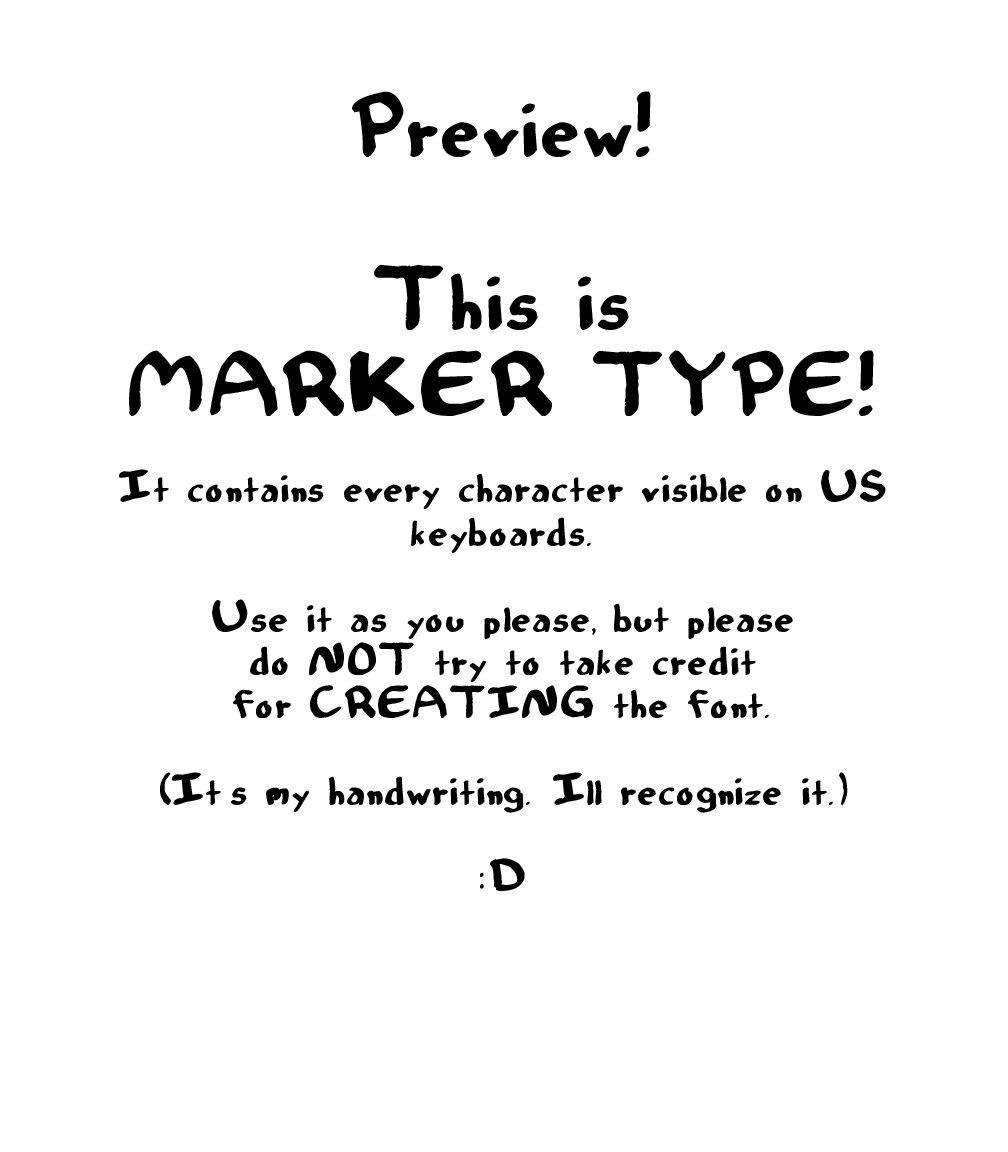
This is my first font EVAH and is a sample of my handwriting.One minor bug... the apostrophe (') and quotation mark (") are not working properly. Anyone know why that is? I'd be might thankful for any help I can get.
Which program did you use to create the font? If it's "Font Creater" I might be able to help you
I like your font, I like those handwriting fonts
haha! this font is really cute! i think i'll use and abuse it! thanks
It's a really nice font, especially for your first attempt. Some letters in particular look fantastic (like the word "Preview"), but there are some that could perhaps still use a little tweaking. The lowercase m seems a bit messy, especially in smaller font sizes. The capital I looks like it should be aligned lower on the line.
In general the capital letters don't look as good to me as the lowercase ones. I don't really like the uppercase M and N, but since this is your handwriting style maybe they have to stay that way. The edges of the capital T look slightly ragged.
It's not made to be exactly perfect. I like the little flaws here and there. It's a little rough around the edges... like me.